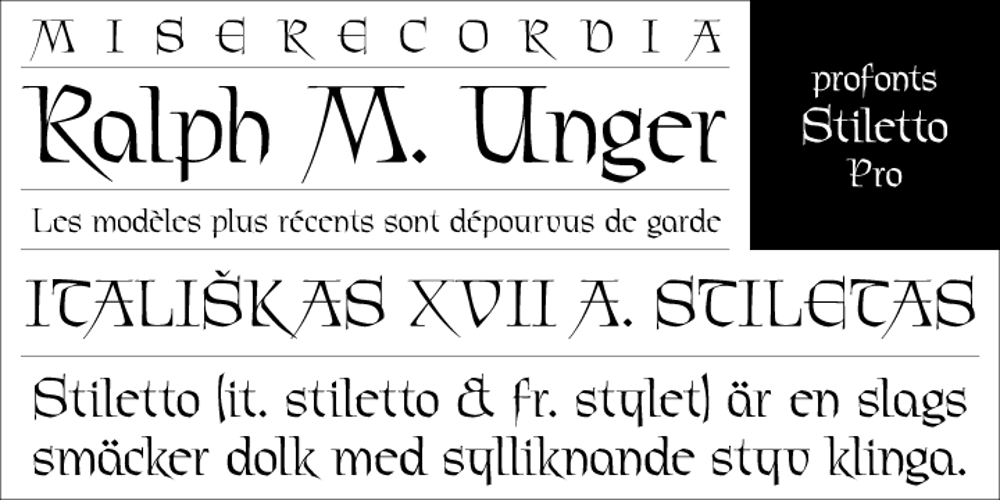
Stiletto Font Family was designed by Ralph M. Unger and published by profonts. Stiletto contains 1 styles and family package options. Are you looking for a font reflecting ancient times, antiques, knights and suchlike? Consider Stiletto, a beautiful, calligraphic-like design with special forms that evoke pleasant memories of old times.